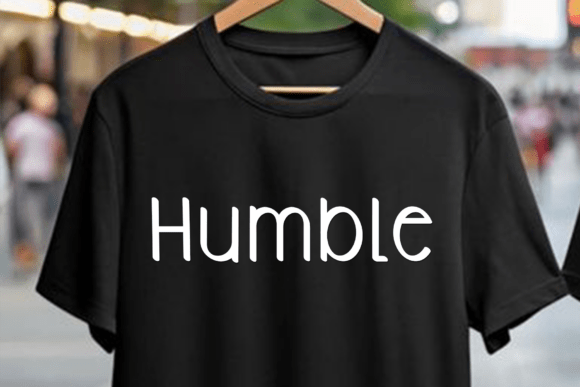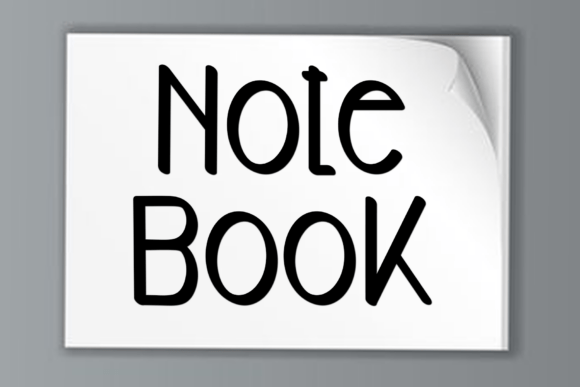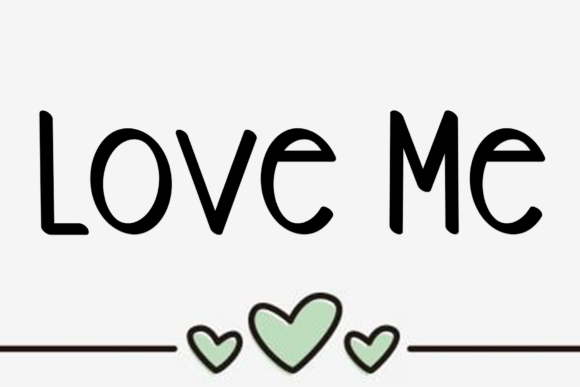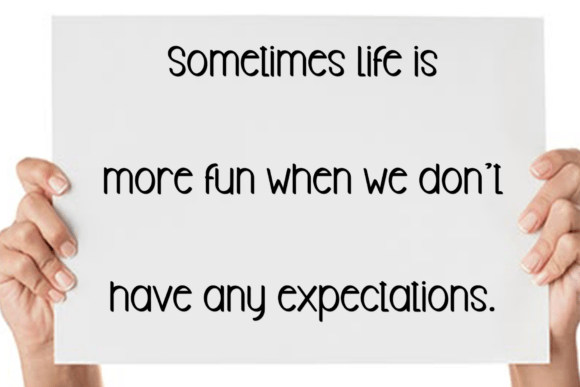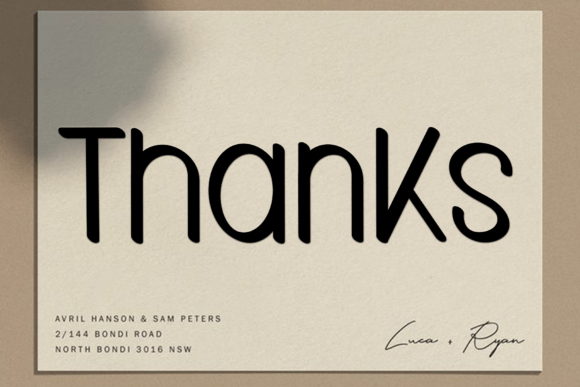
Introducing Farmer Market Font: Wholesome Charm Meets Modern Clarity
In the world of typography, few fonts capture the essence of a down-to-earth, artisanal vibe as perfectly as the Farmer Market font. This modern sans serif typeface is designed with a unique blend of wholesome charm and soft geometric clarity, making it an ideal choice for brands, designers, and crafters looking to convey a sense of approachability and sustainability.
The Inspiration Behind Farmer Market
The design concept for Farmer Market draws heavily from rural aesthetics and small-town values. Imagine walking through a bustling farmer’s market, surrounded by fresh produce signs, eco-conscious labels, handmade soap wrappers, and coffee shop chalkboards. The font’s creator aimed to distill the essence of these everyday elements into a typeface that exudes warmth, friendliness, and a connection to the natural world.
Farmer Market’s design is characterized by its clean, sans serif structure, which provides a modern and sleek look. However, it’s the font’s rounded curves and open forms that truly set it apart, imbuing it with a welcoming, non-corporate feel. This balance between modernity and warmth is no easy feat, but the result is a typeface that feels both practical and expressive.
Ideal Applications for Farmer Market
Given its unique characteristics, Farmer Market is perfectly suited for projects that require a natural or artisanal twist. Some ideal applications include:
- Branding: Use Farmer Market to create a logo or label that conveys a sense of wholesomeness and approachability.
- Signage: The font’s clear, readable design makes it perfect for signs, whether it’s for a farmer’s market stall, a craft fair booth, or a storefront.
- Packaging: Add a touch of warmth and personality to your product packaging with Farmer Market, ideal for artisanal foods, handmade crafts, or eco-friendly products.
What Sets Farmer Market Apart
In a design world where fonts can often feel cold and corporate, Farmer Market stands out for its humanist warmth. It’s a font that looks simple yet feels alive, like a clean brand label written with care. This unique blend of simplicity and expressiveness makes it an excellent choice for designers and crafters looking to create a genuine connection with their audience.
Tips for Using Farmer Market
To get the most out of Farmer Market, consider the following tips:
- Pair with contrasting fonts: Combine Farmer Market with a more traditional serif font for a striking contrast that adds visual interest.
- Experiment with sizes: Use larger sizes for headings and smaller sizes for body text to create a clear visual hierarchy.
- Play with colors: While Farmer Market looks great in black and white, don’t be afraid to experiment with earthy tones and natural colors to enhance its wholesome feel.
Farmer Market font is more than just a typeface – it’s a design solution that brings a sense of warmth, approachability, and sustainability to any project. Whether you’re a designer looking for a unique font to add to your toolkit or a crafter seeking to create a genuine connection with your audience, Farmer Market is an excellent choice. With its perfect blend of modern clarity and wholesome charm, this font is sure to make your designs stand out in a crowded world.